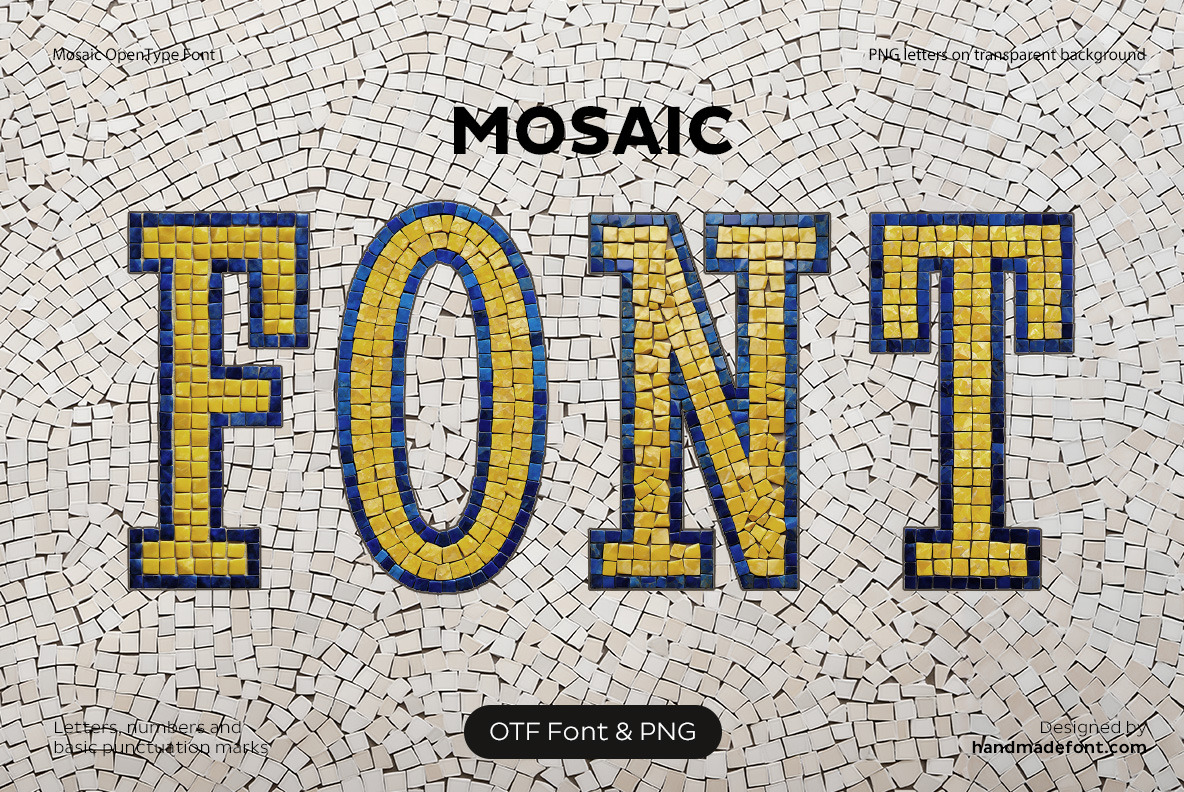
Mosaic Font
Small mosaic stones come together to create the stunning Mosaic Font, a vibrant alphabet inspired by intricate patterns and textures. Each letter is a work of art, crafted from tiny, colorful pieces that form a unique, eye-catching design. Perfect for projects that call for a creative and decorative touch, this font adds a playful yet sophisticated flair. Ideal for branding, posters, or digital designs, the Mosaic Font brings timeless charm and artistry to your text.
A high definition OpenType Font. Contains uppercase characters, numerals and basic punctuation. (Draw height roughly 800 pixels). All letters and glyphs that comprises this font you can see on the preview.
- Letters : A B C D E F G H I J K L M N O P Q R S T U V W X Y Z
- Numbers : 0 1 2 3 4 5 6 7 8 9
- Others : ! ? - . ' $ € % & #